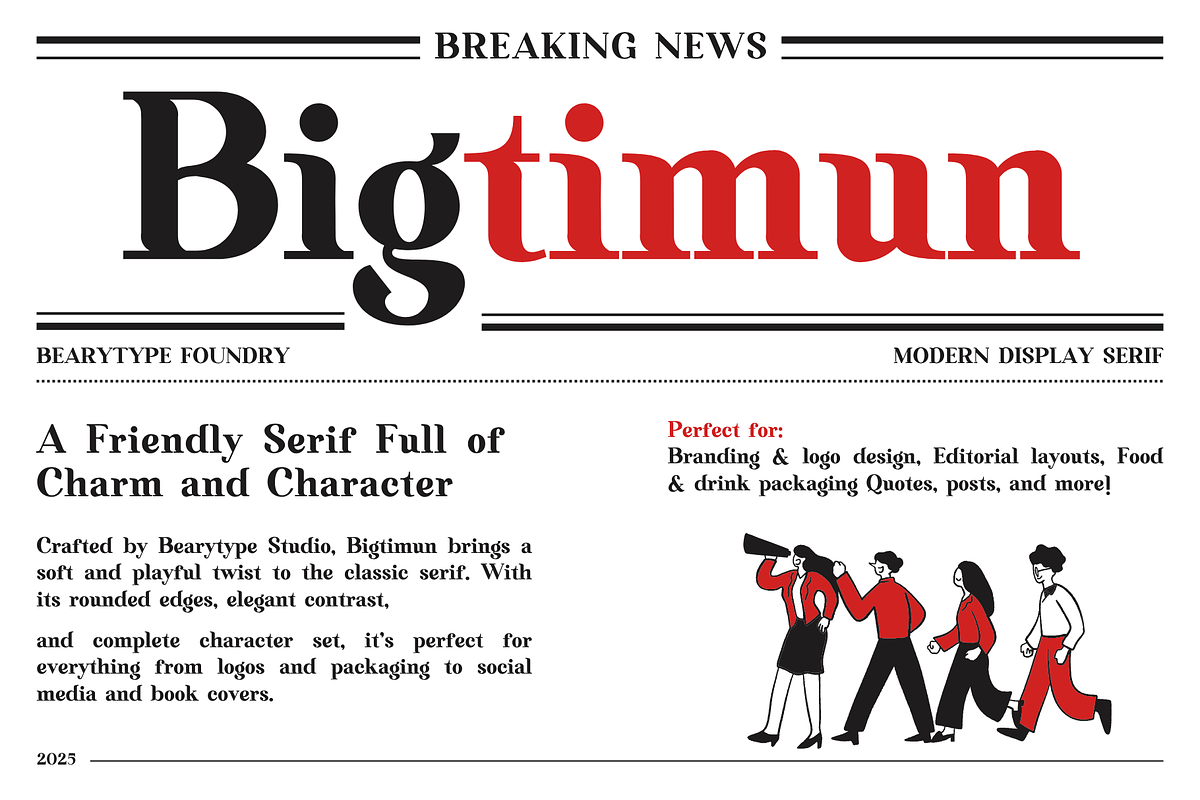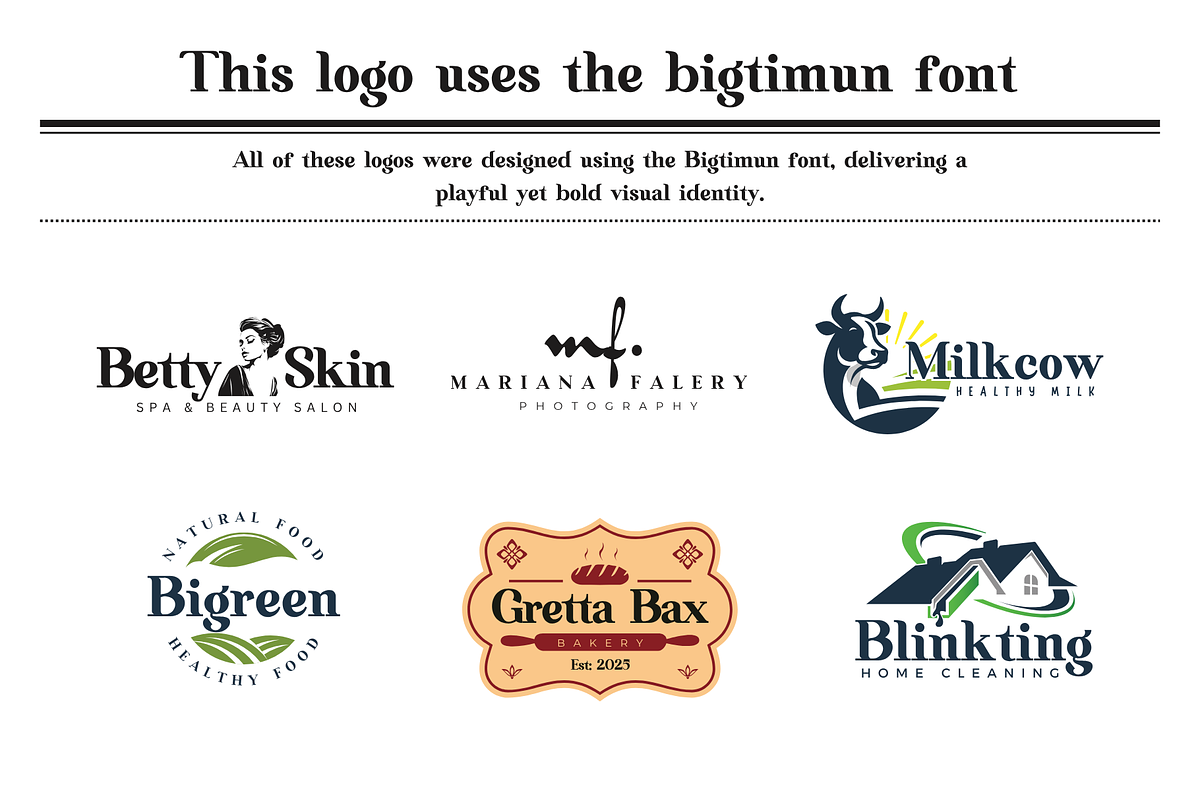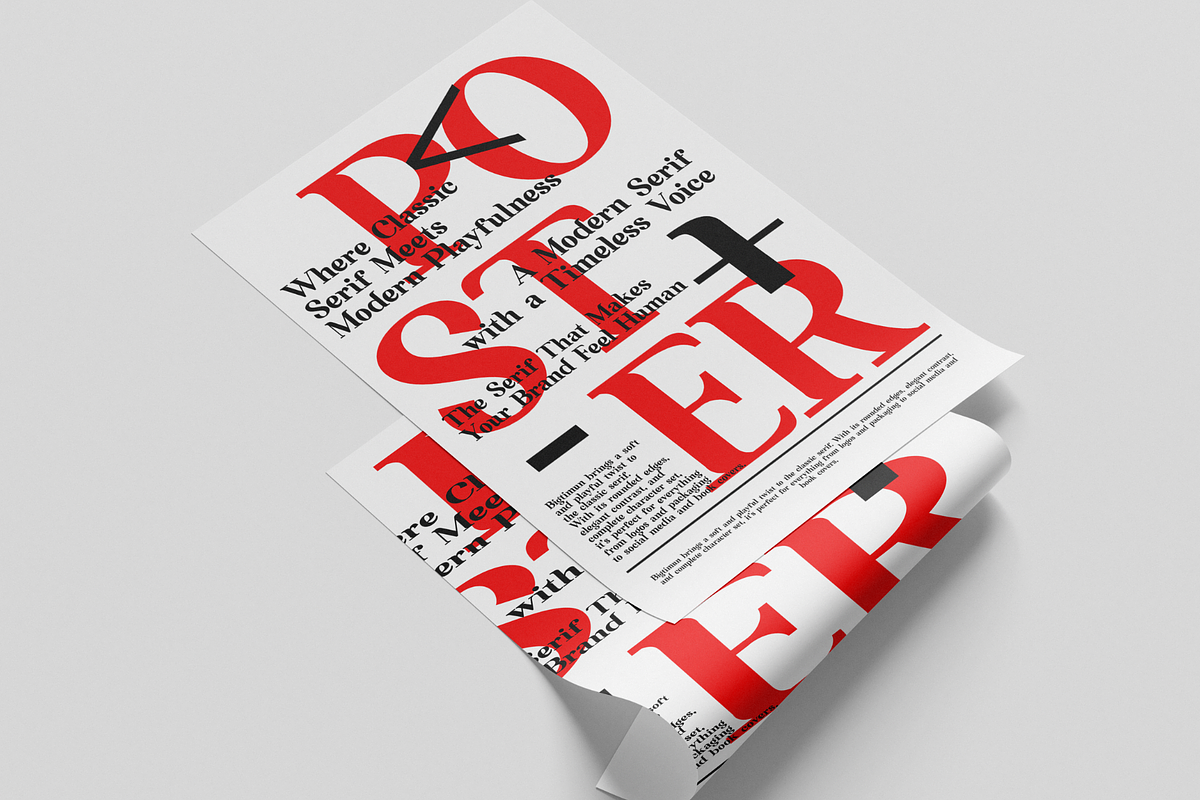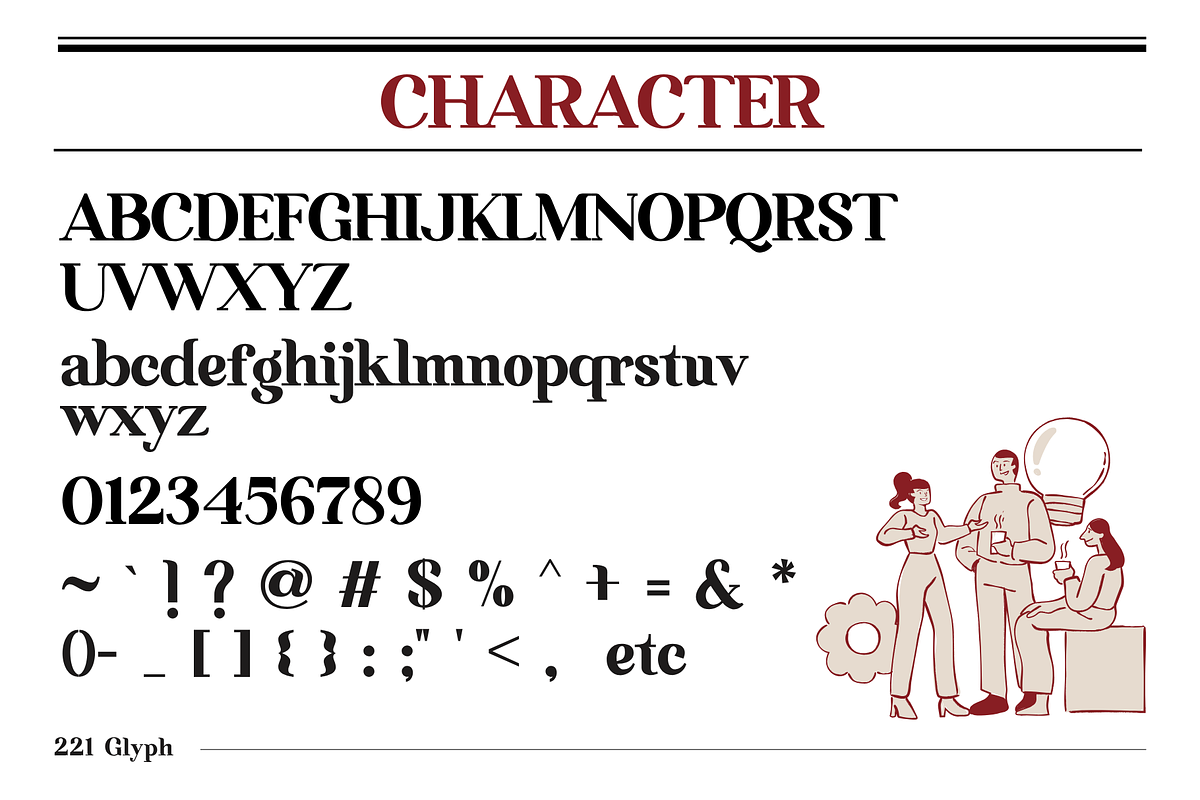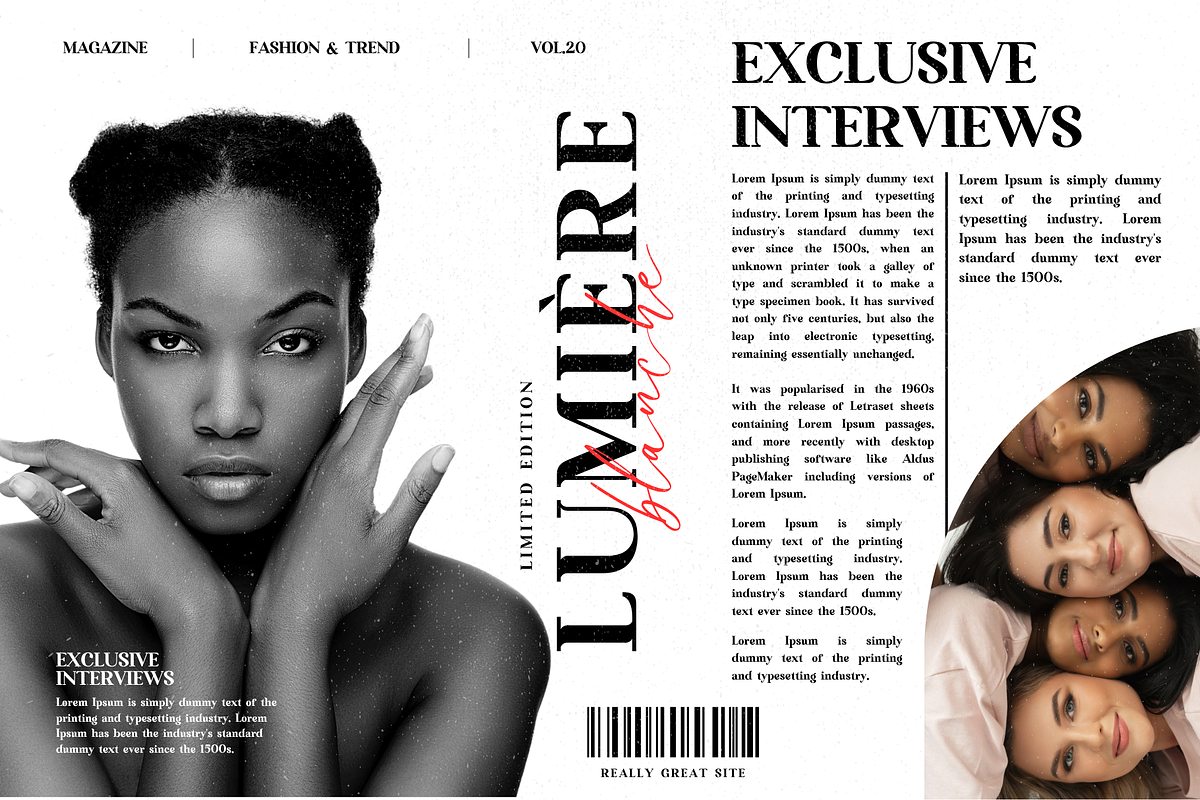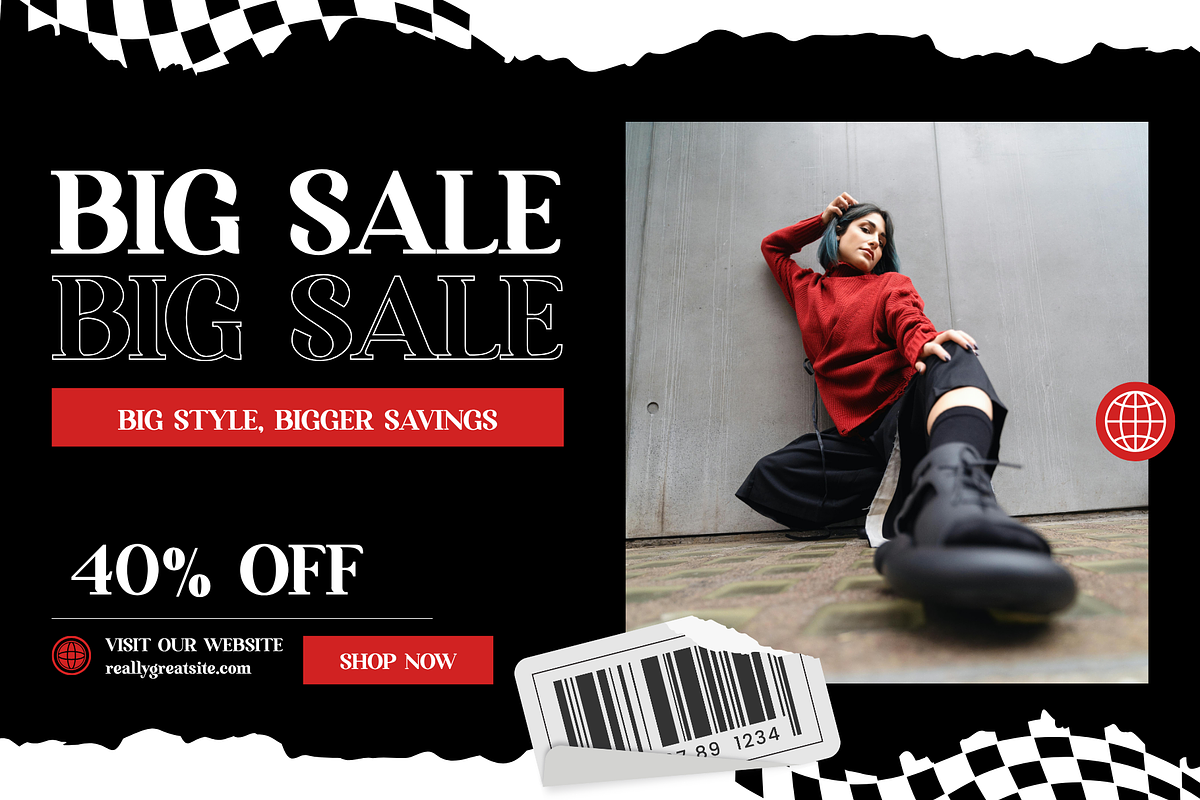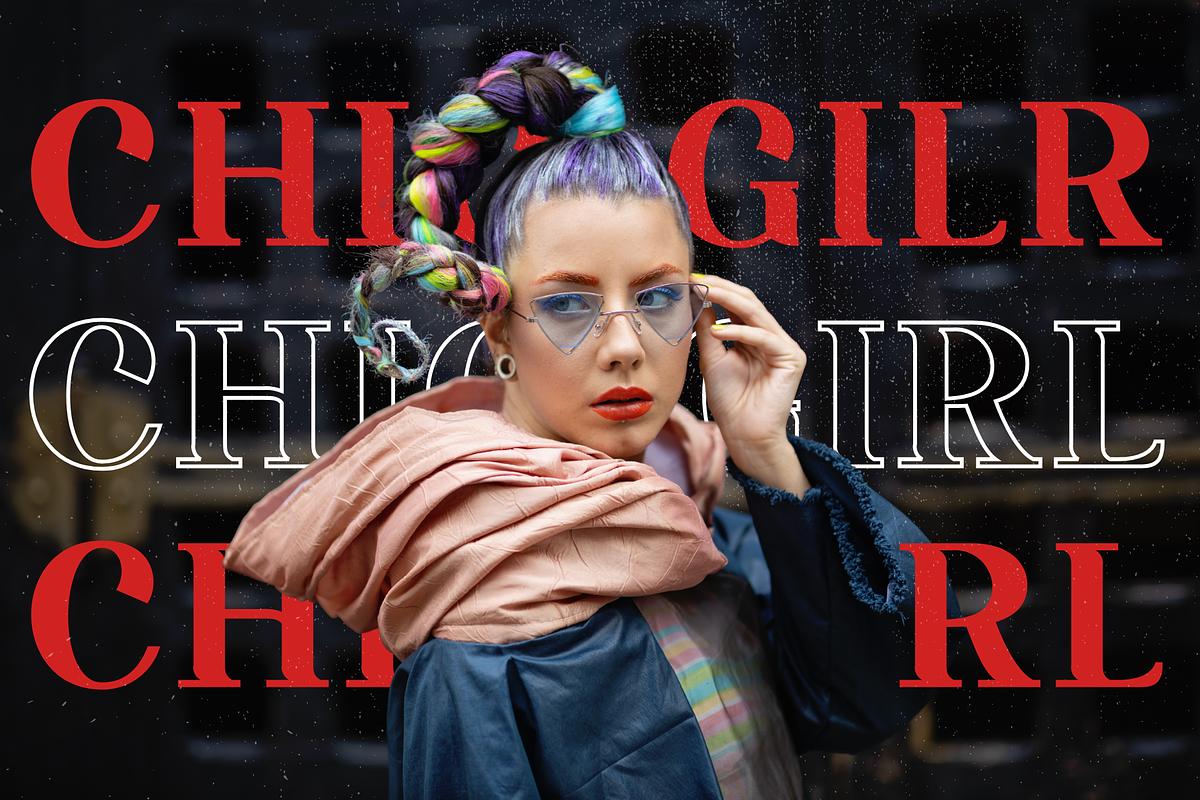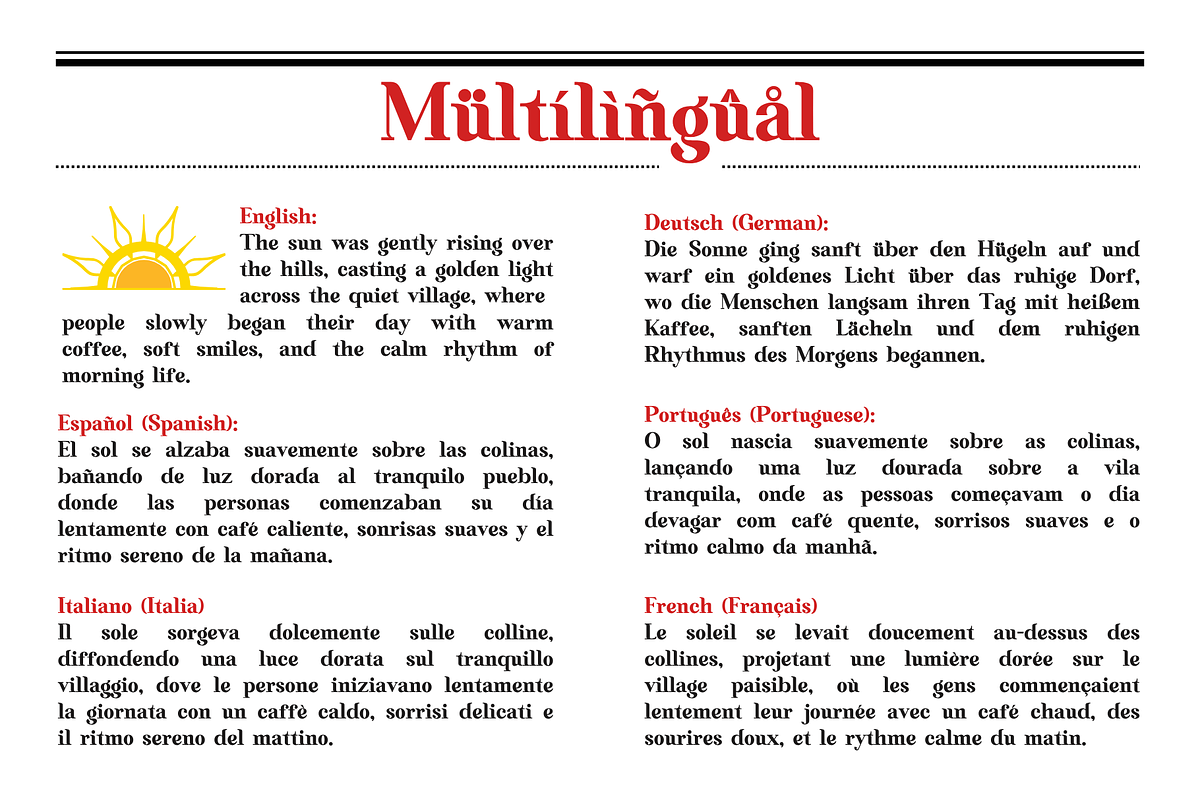
Bigtimun – Modern Friendly Serif
Bigtimun is a modern serif font with a soft, welcoming personality and smooth curves — perfect for branding, editorial projects, packaging design, and digital content. Designed by Bearytype Studio in 2025, this typeface combines timeless elegance with a contemporary twist, making it ideal for designers who want their text to feel refined, friendly, and full of charm.
With clean outlines and subtle contrast between thick and thin strokes, Bigtimun is readable, expressive, and highly versatile. Whether you're creating a logo, headline, product label, or social media post, Bigtimun adds warmth and professionalism in every context.
- Uppercase & lowercase characters
🎯 Perfect For:
- Branding & Logo Design
- Product Packaging (F&B, beauty, artisan goods)
- Editorial & Magazine Titles
- Poster Design & Quote Layouts
- Social Media Graphics & Web Banners
- Handmade or Local Business Identity